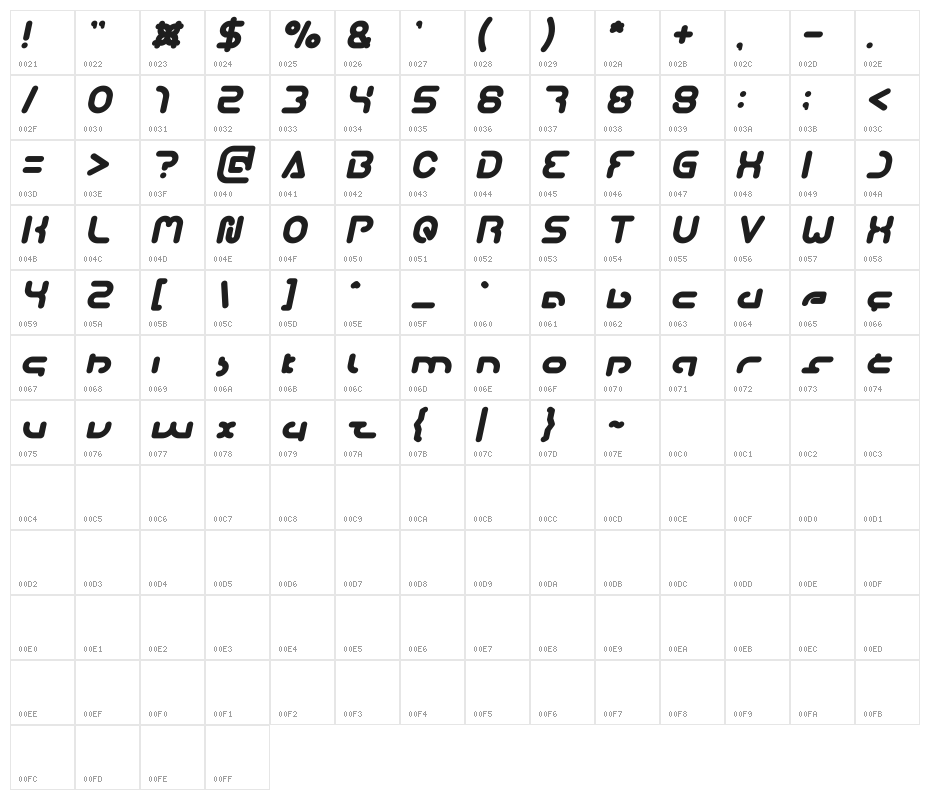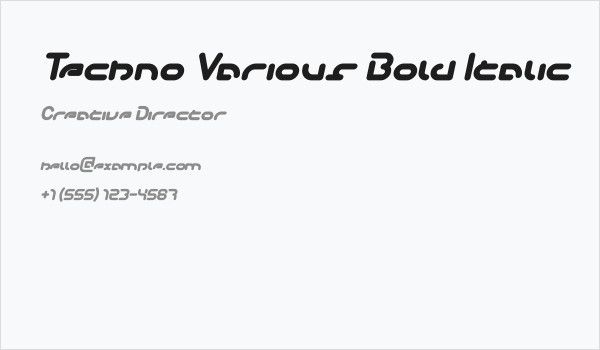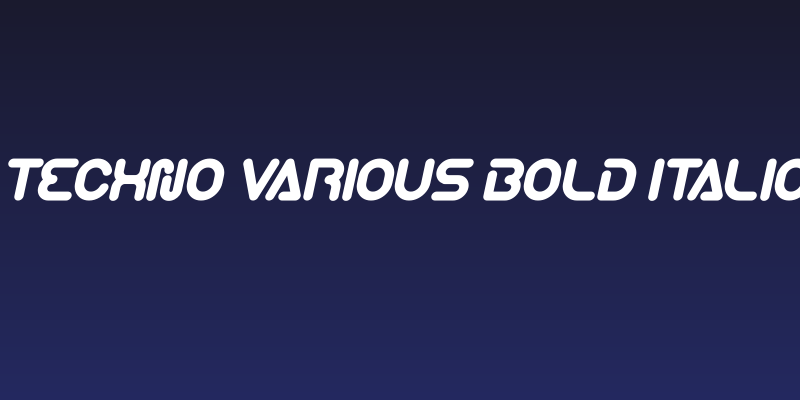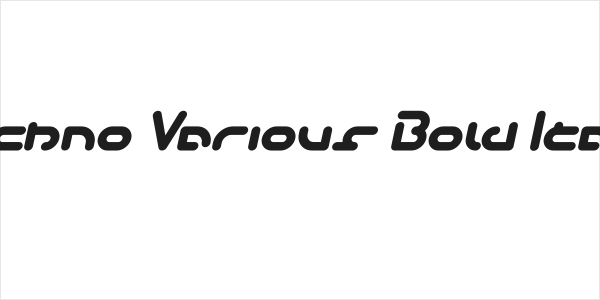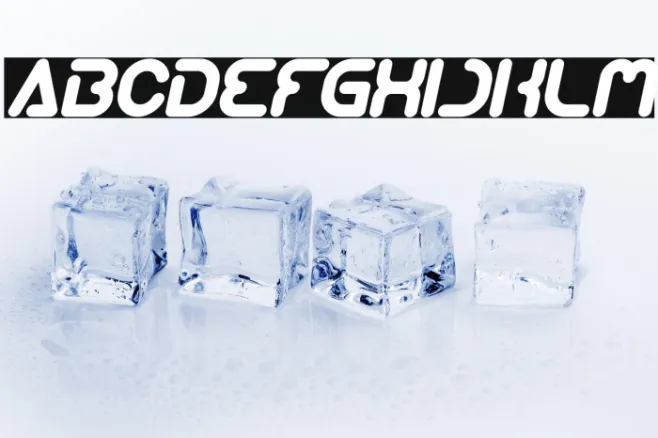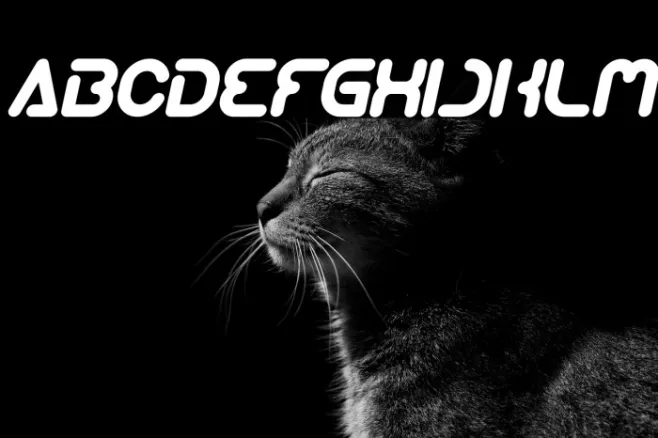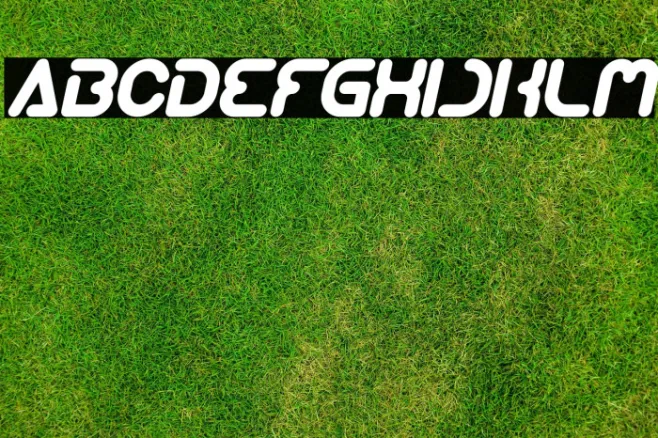
Techno Various Bold Italic Font
Techno Various Bold Italic Description
This font features a bold and italic style with a futuristic and techno-inspired design. The characters are rounded and connected, giving a smooth and continuous flow. The uppercase and lowercase letters maintain a consistent style, with a slight slant that enhances its dynamic appearance. The numbers and special characters follow the same design principles, ensuring uniformity across all glyphs. The font's boldness makes it highly visible, while the italic slant adds a sense of motion and modernity.
| Proposed Projects | Ideal for technology-themed projects, futuristic branding, video game titles, and sci-fi posters. |